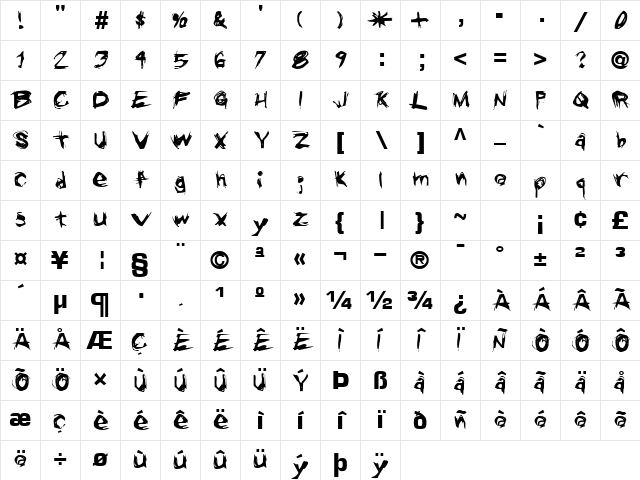
Pickets Regular Free Font
Pickets Regular
Pickets Family
Design Context for Pickets
Pickets is a composed and adaptable typeface that performs quietly and consistently across a wide range of design contexts.